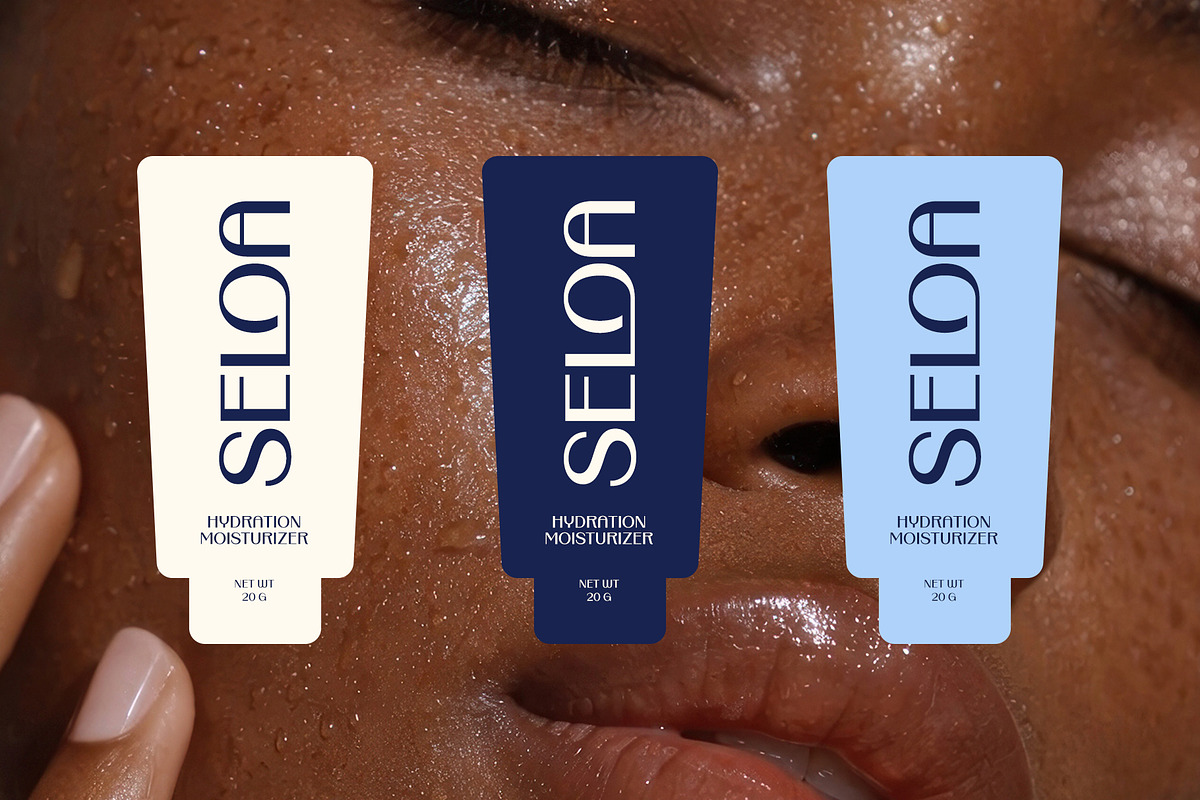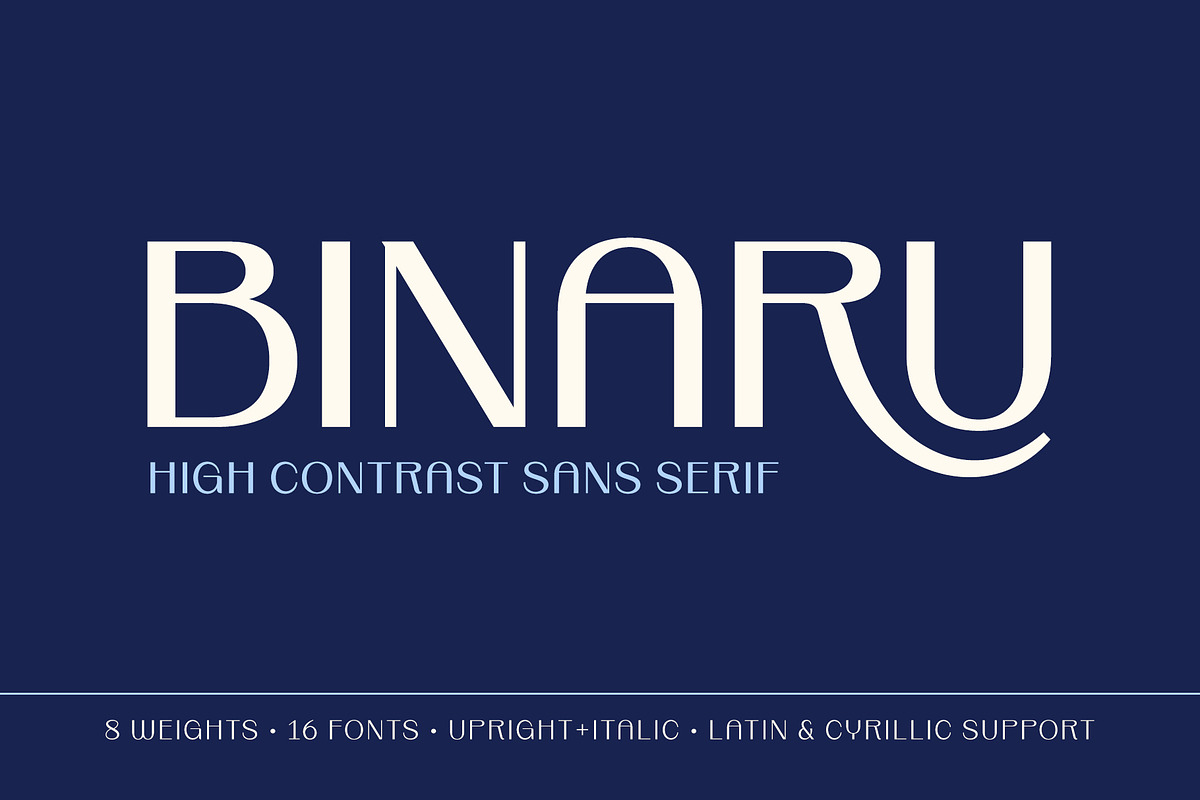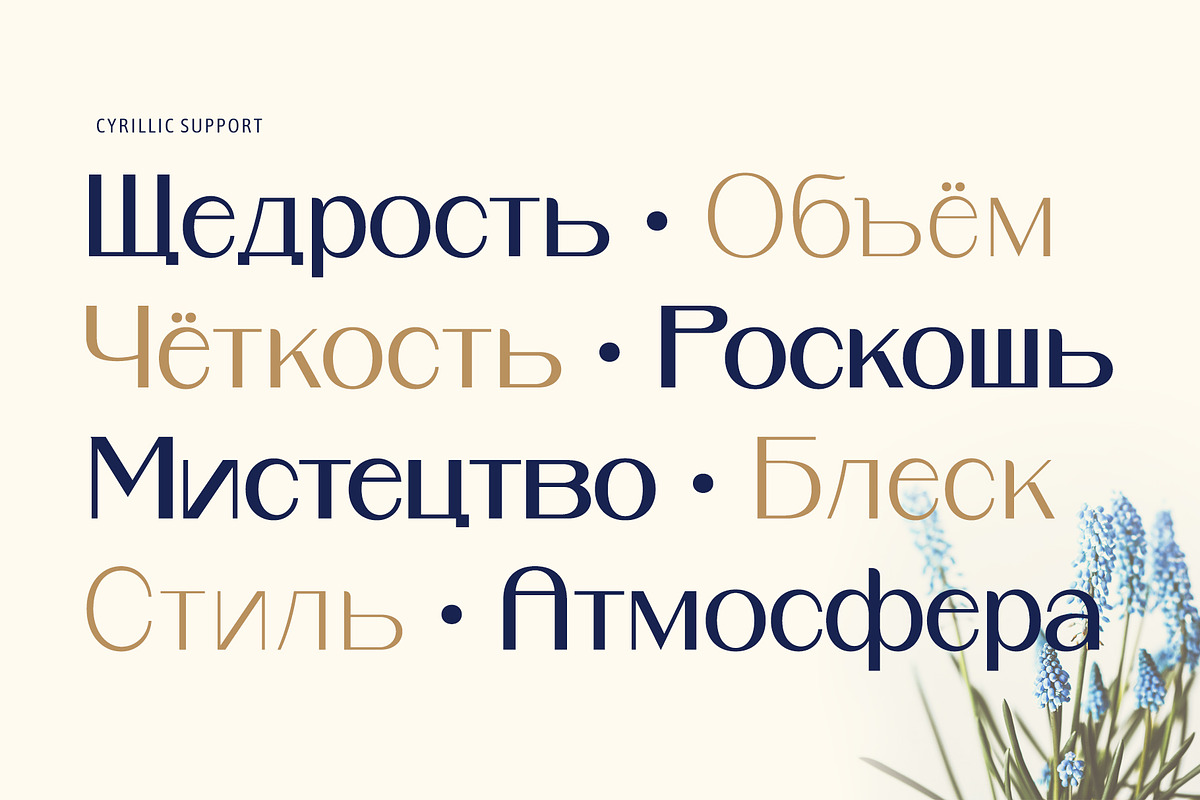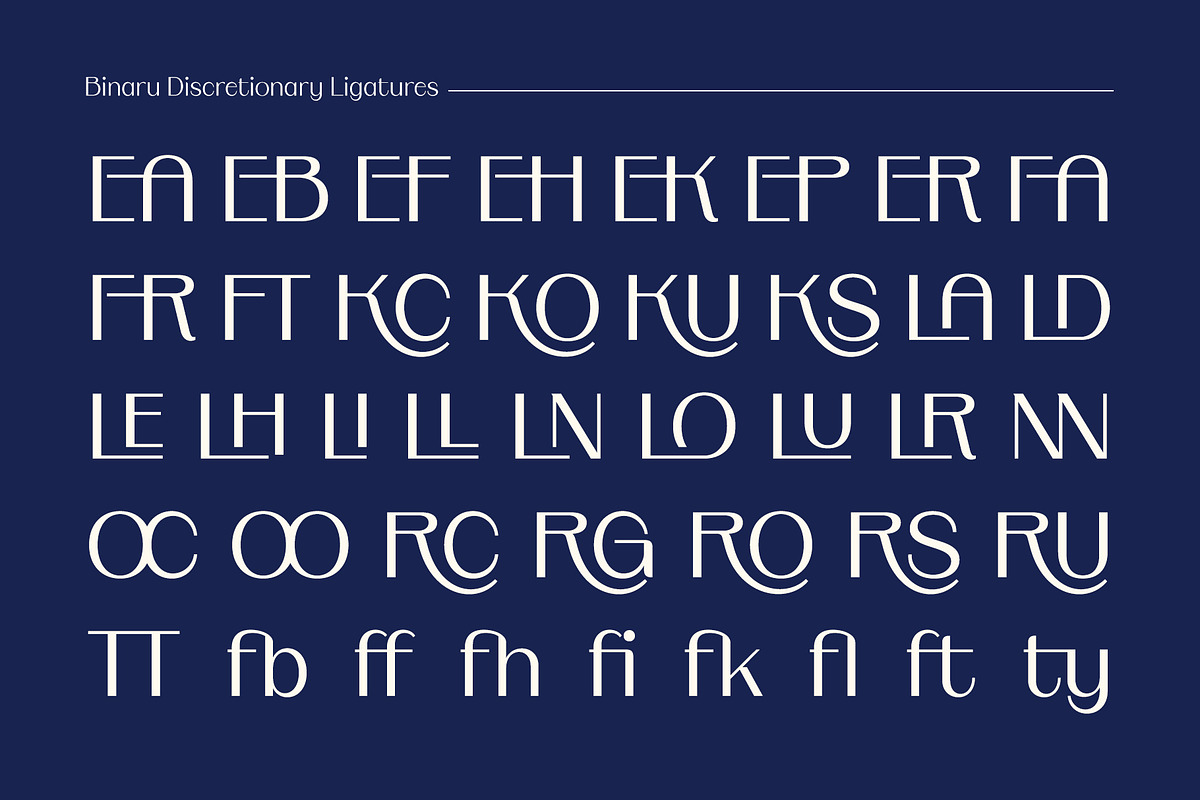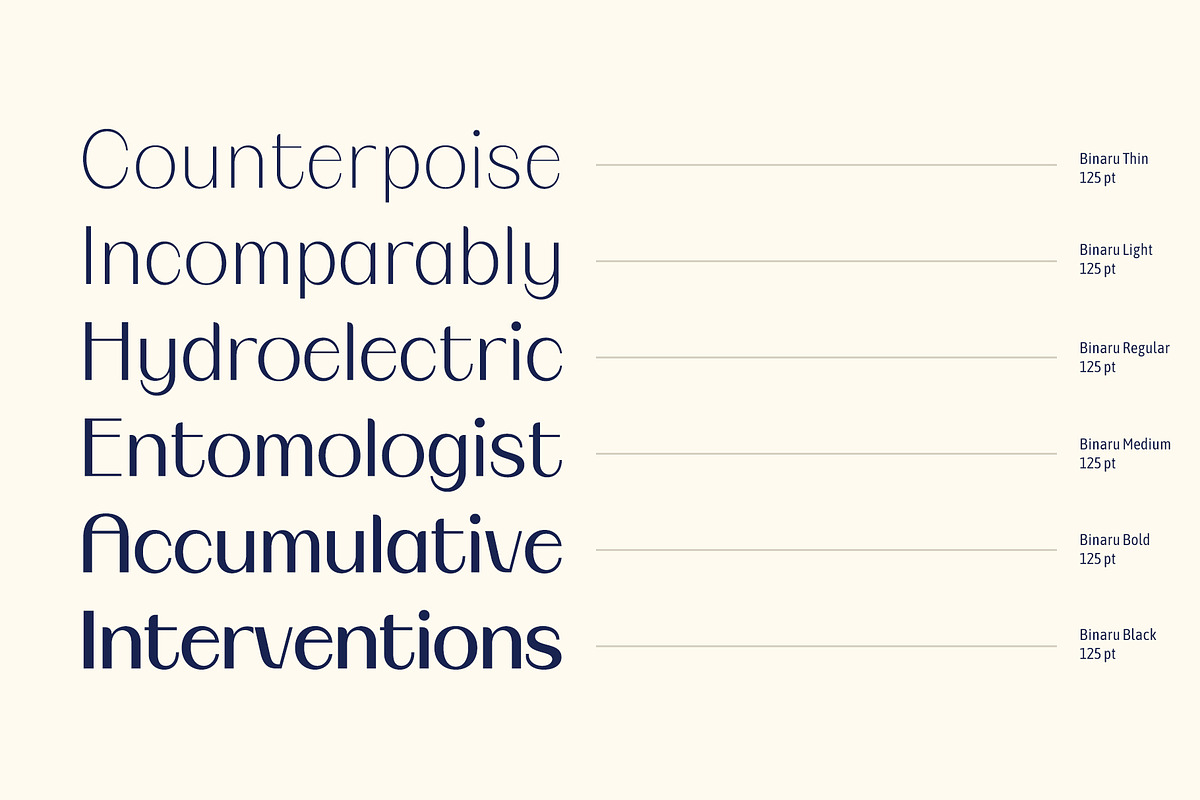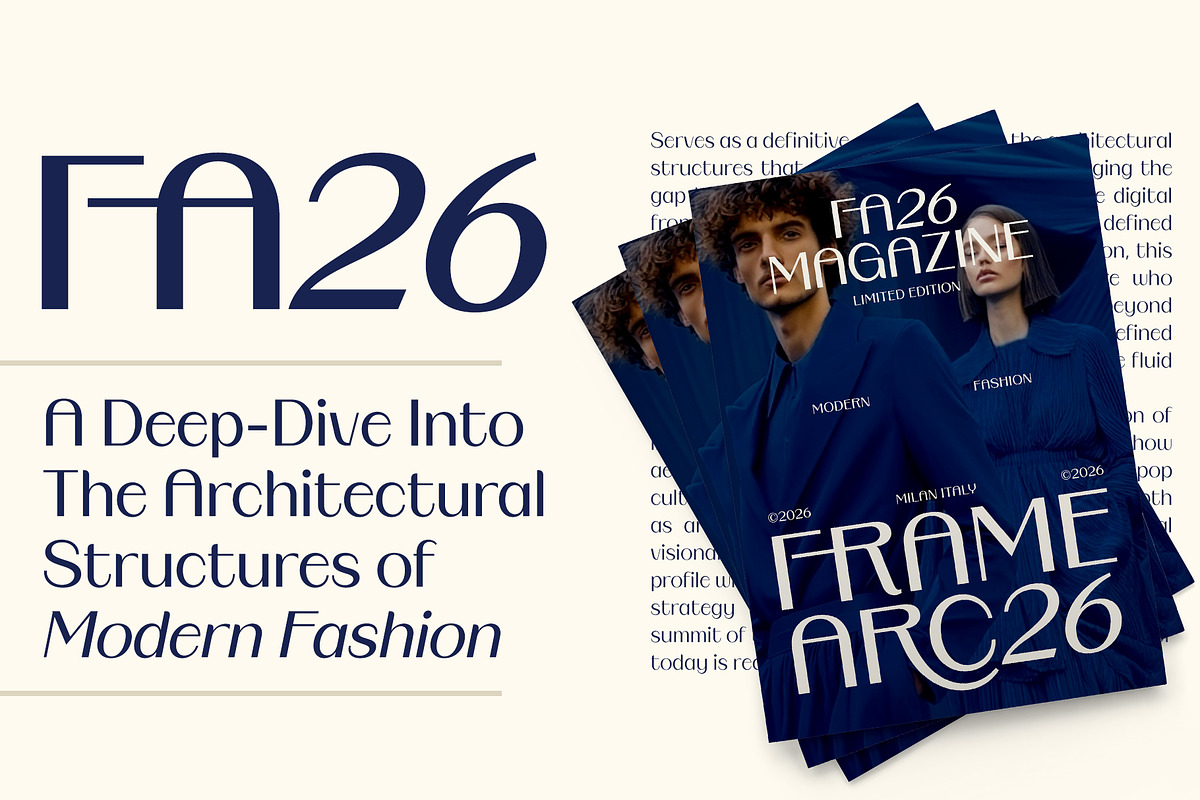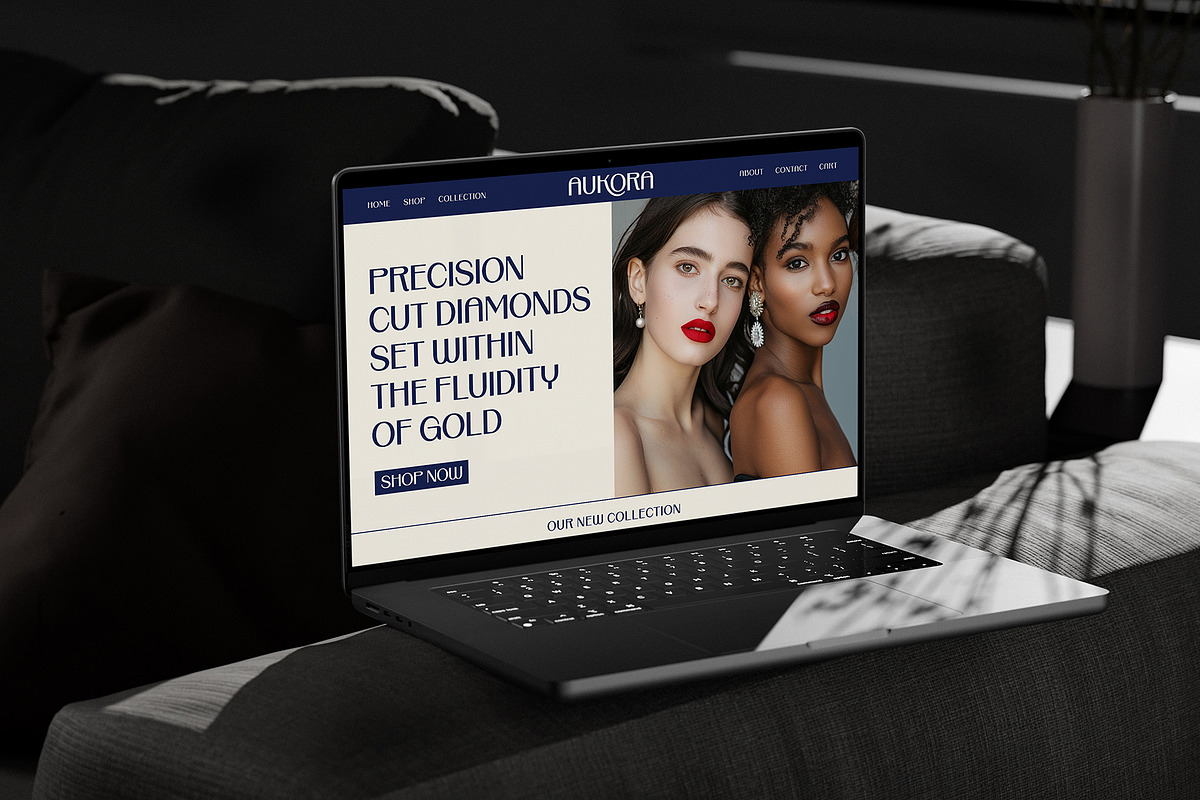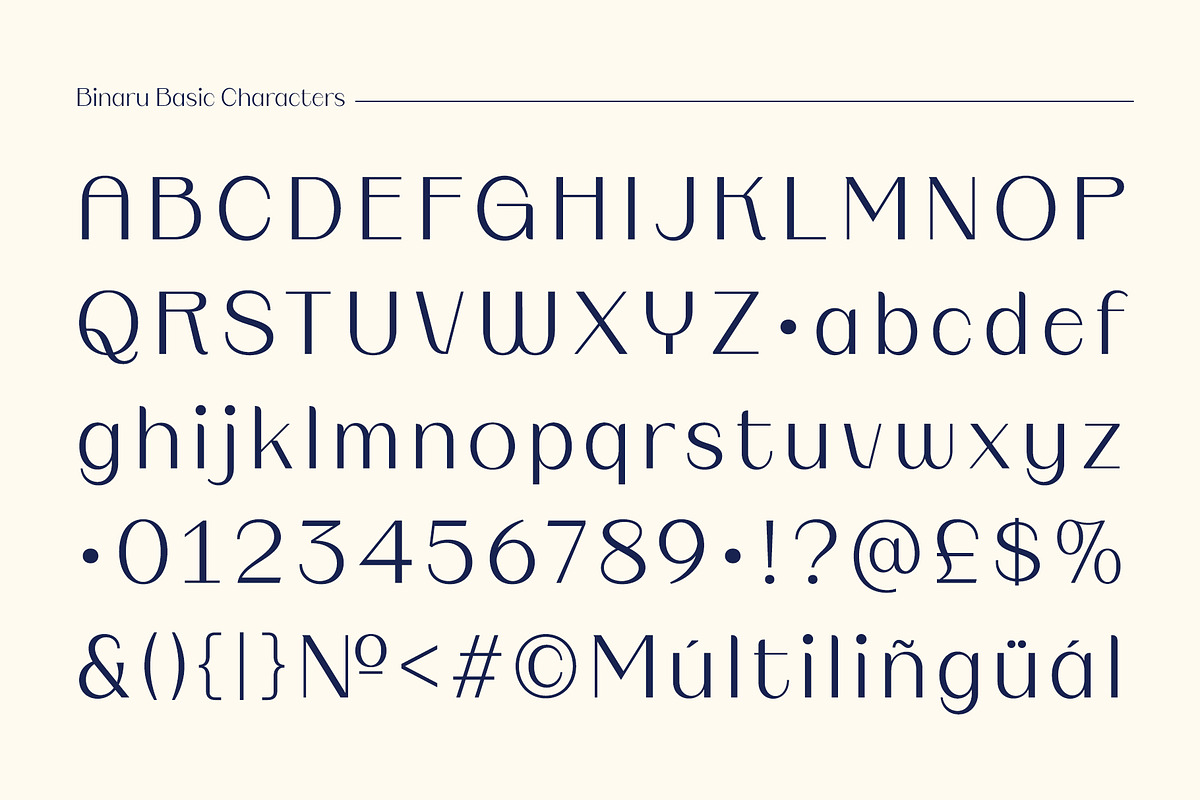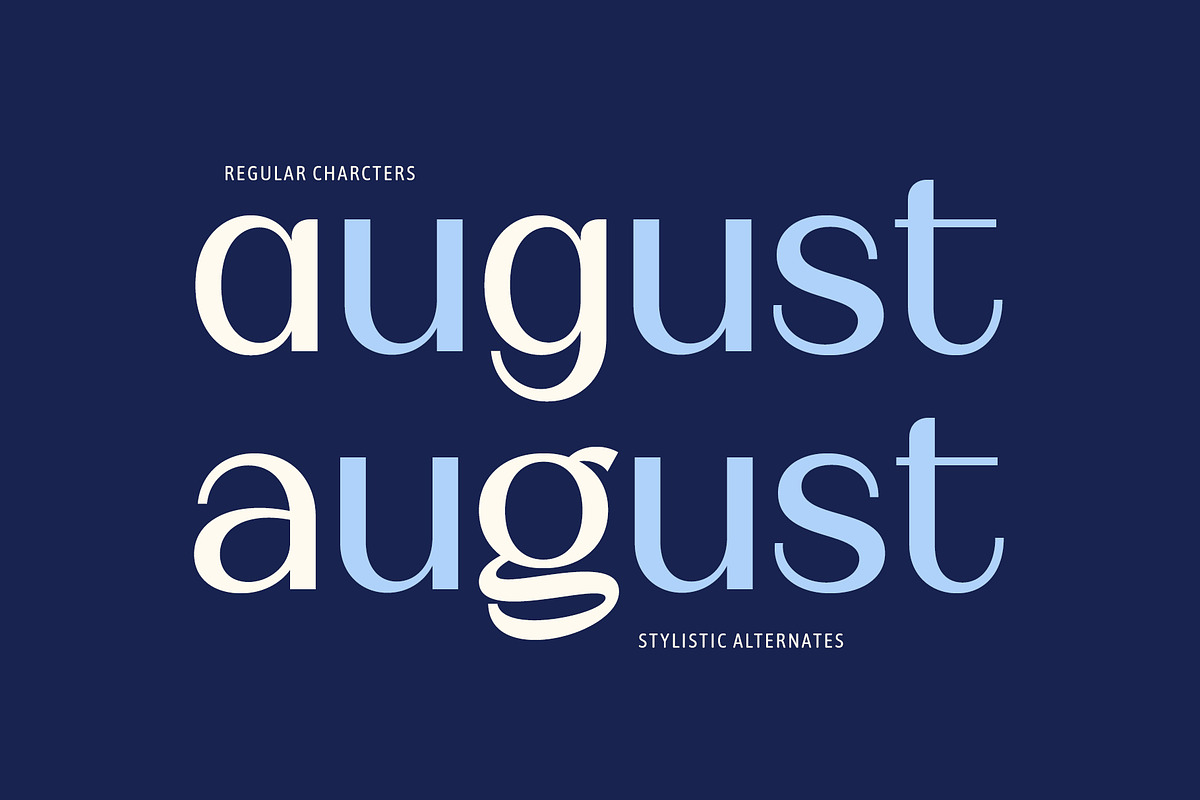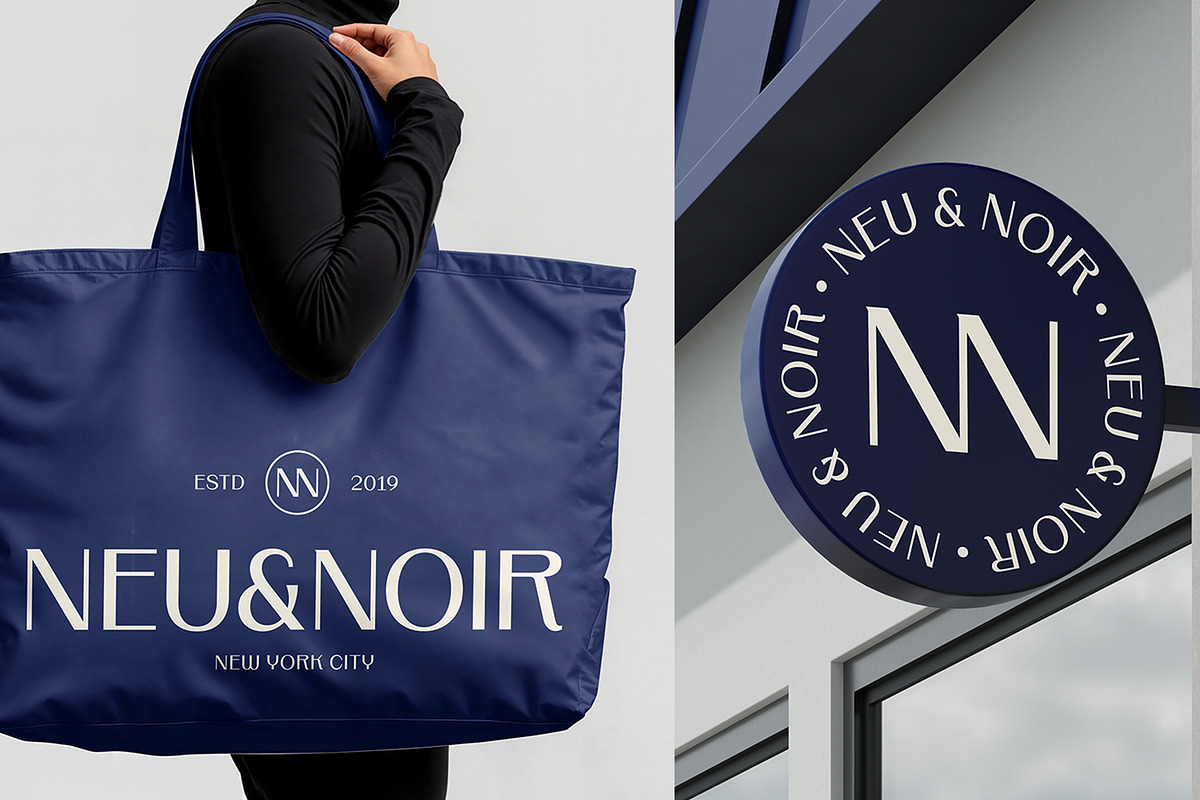
Binaru
Binaru is a high-contrast sans-serif typeface characterized by refined proportions, elegant curves, and a calm, contemporary tone. Its light-to-heavy contrast is controlled and graceful, giving the design a feminine presence without appearing decorative or fragile.
The family offers six weights from Thin to Black, designed to work cohesively across editorial layouts, headlines, and branding systems. Open forms, generous spacing, and balanced stroke modulation ensure clarity at large sizes while maintaining a distinctive visual voice.
Binaru includes discretionary ligatures for subtle typographic refinement and supports Cyrillic characters, making it suitable for multilingual and international projects. It is crafted for designers seeking a modern sans-serif with elegance, contrast, and editorial sensitivity.
Six weights: Thin, Light, Regular, Medium, Bold, Black
High-contrast sans-serif design
Lots of Discretionary ligatures
Cyrillic language support